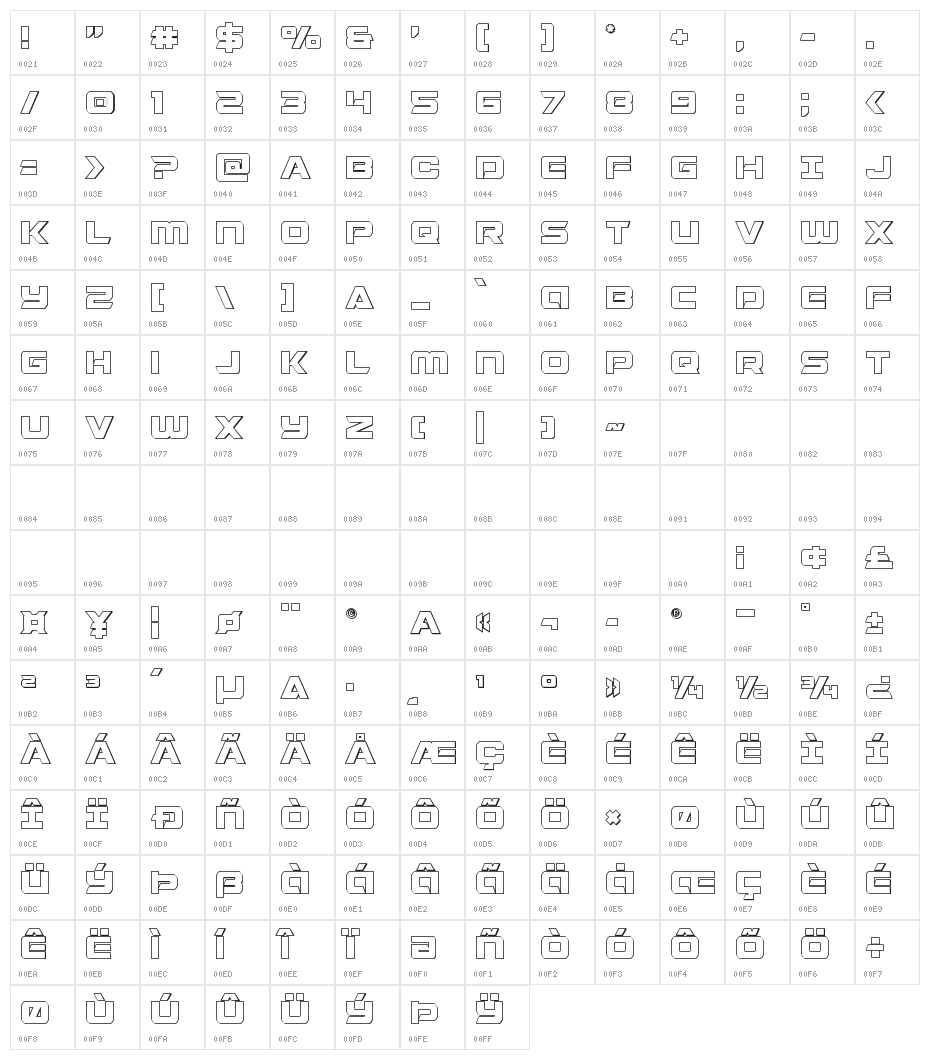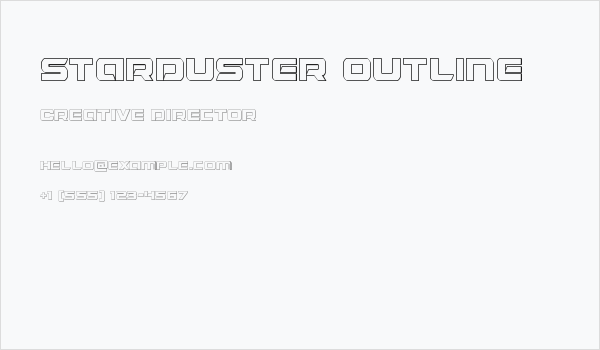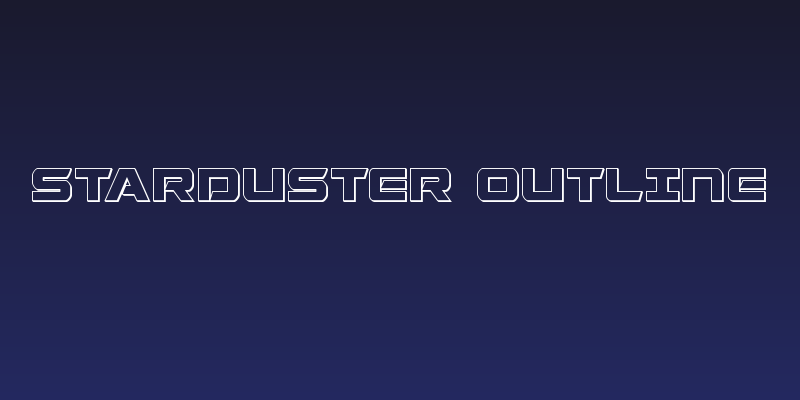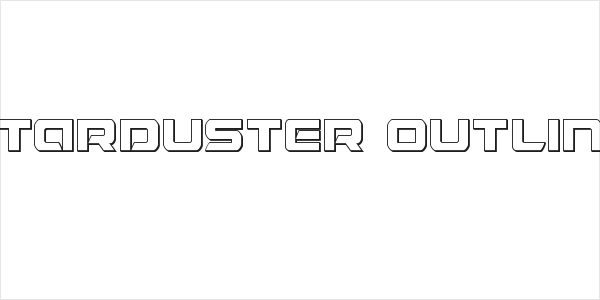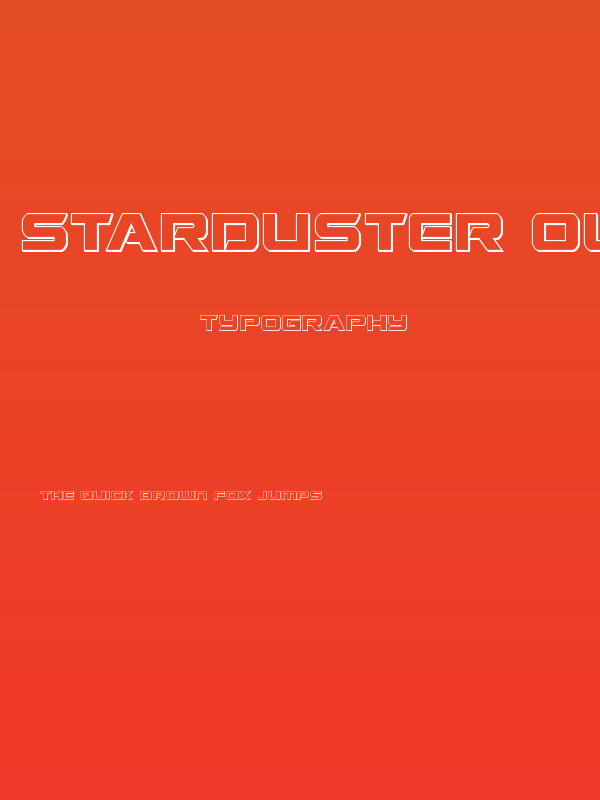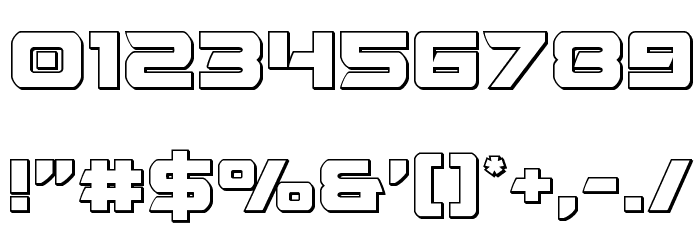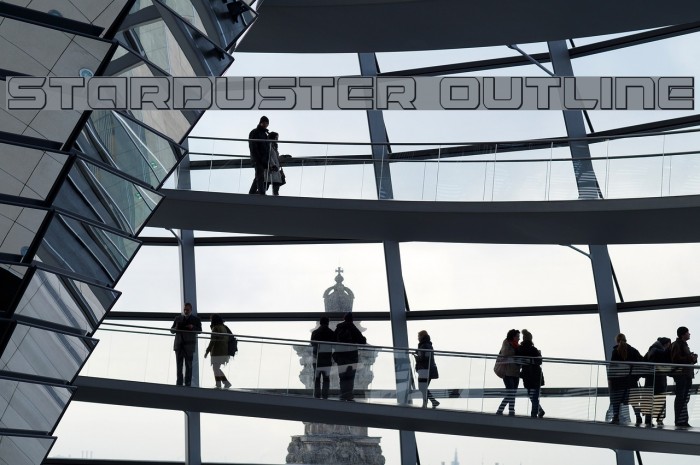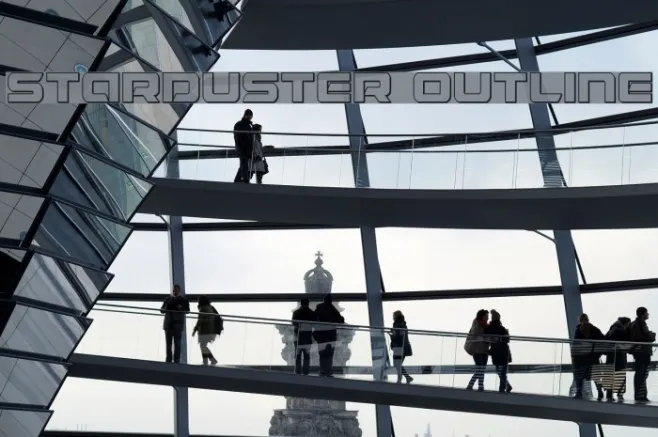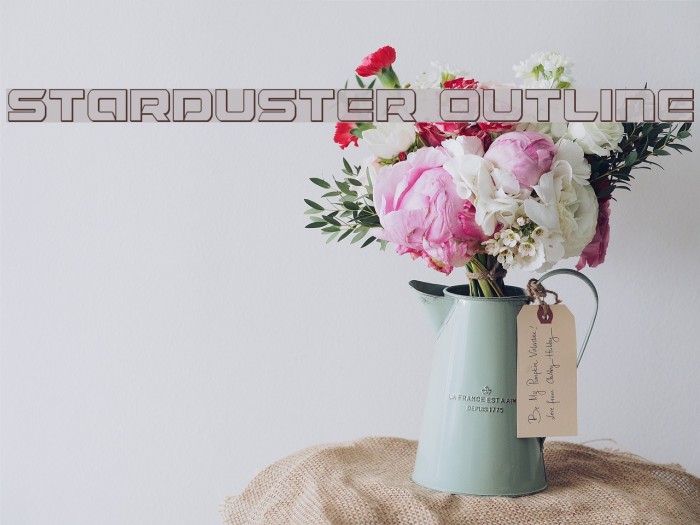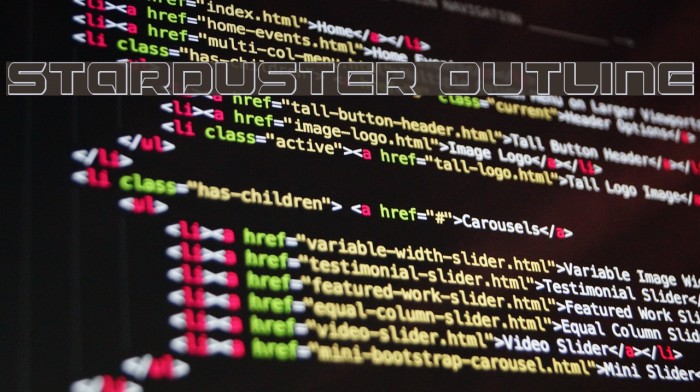
Starduster Outline Font
Starduster Outline Description
This font features a bold, geometric outline style that gives it a futuristic and dynamic appearance. The characters are constructed with a consistent thickness, creating a uniform and cohesive look. The uppercase and lowercase letters share a similar structure, enhancing readability while maintaining a unique aesthetic. The numerals and special characters are designed to match the overall style, ensuring a seamless integration across different uses. The font's outline design makes it ideal for creating eye-catching headlines and titles, where the emphasis is on visual impact rather than readability in body text.
| Overall Style | Futuristic, Modern |
| Proposed Projects | Ideal for sci-fi themed projects, video game titles, posters, and branding that requires a modern, eye-catching look. |